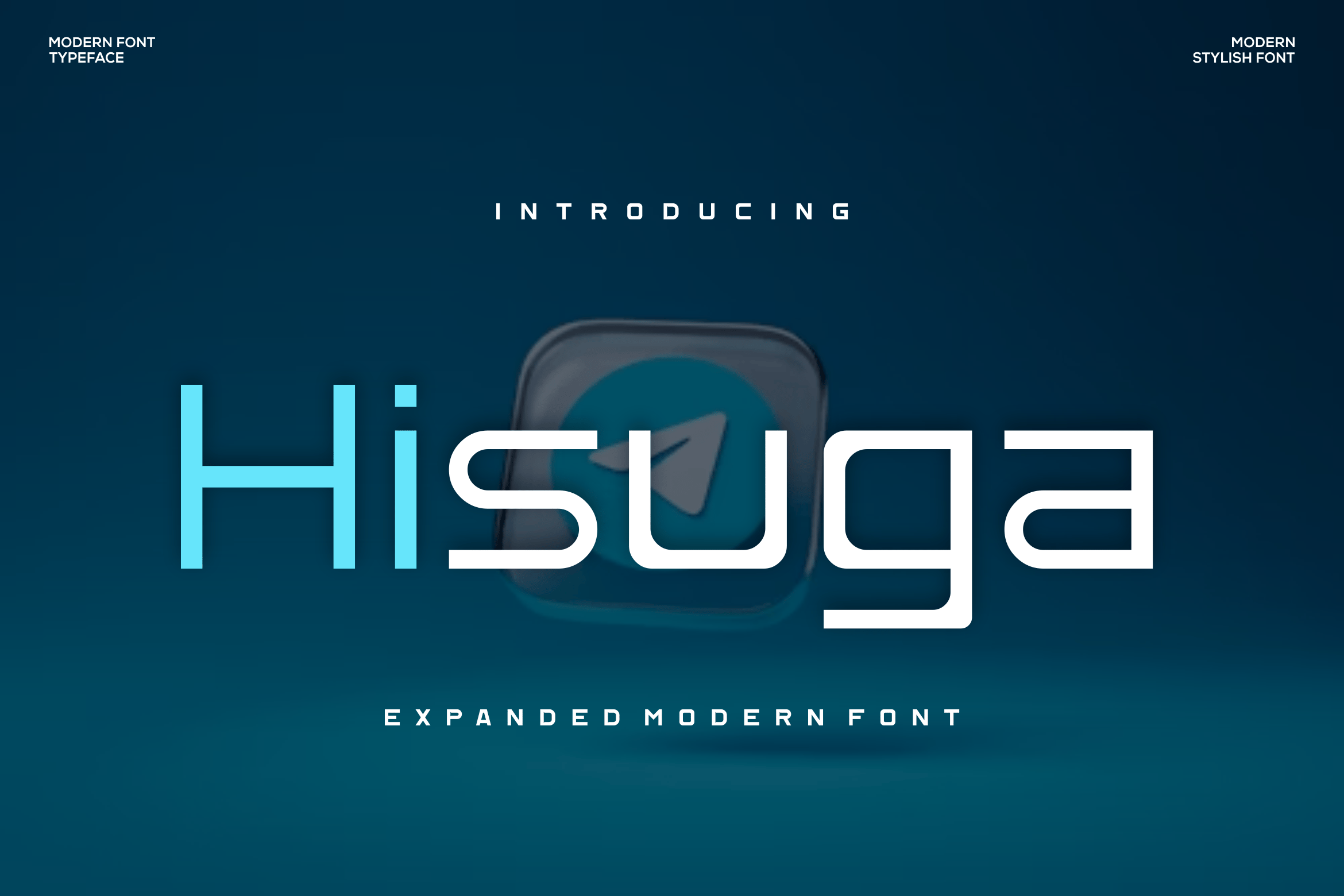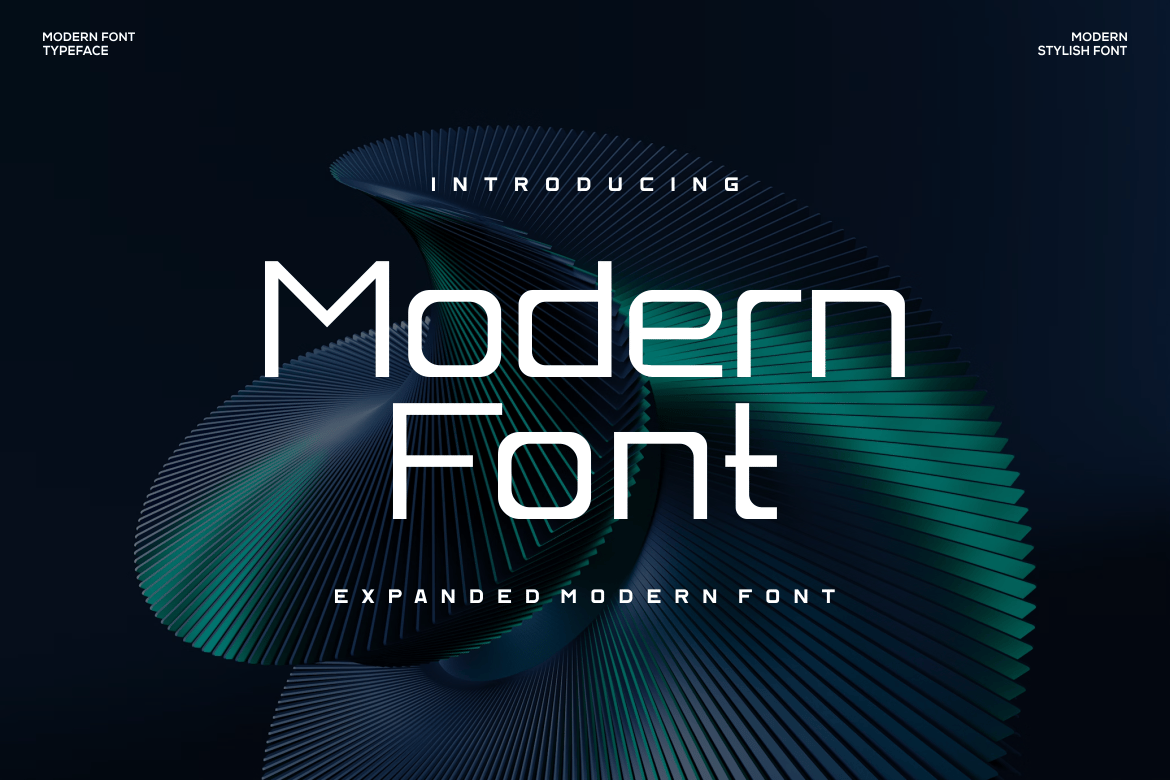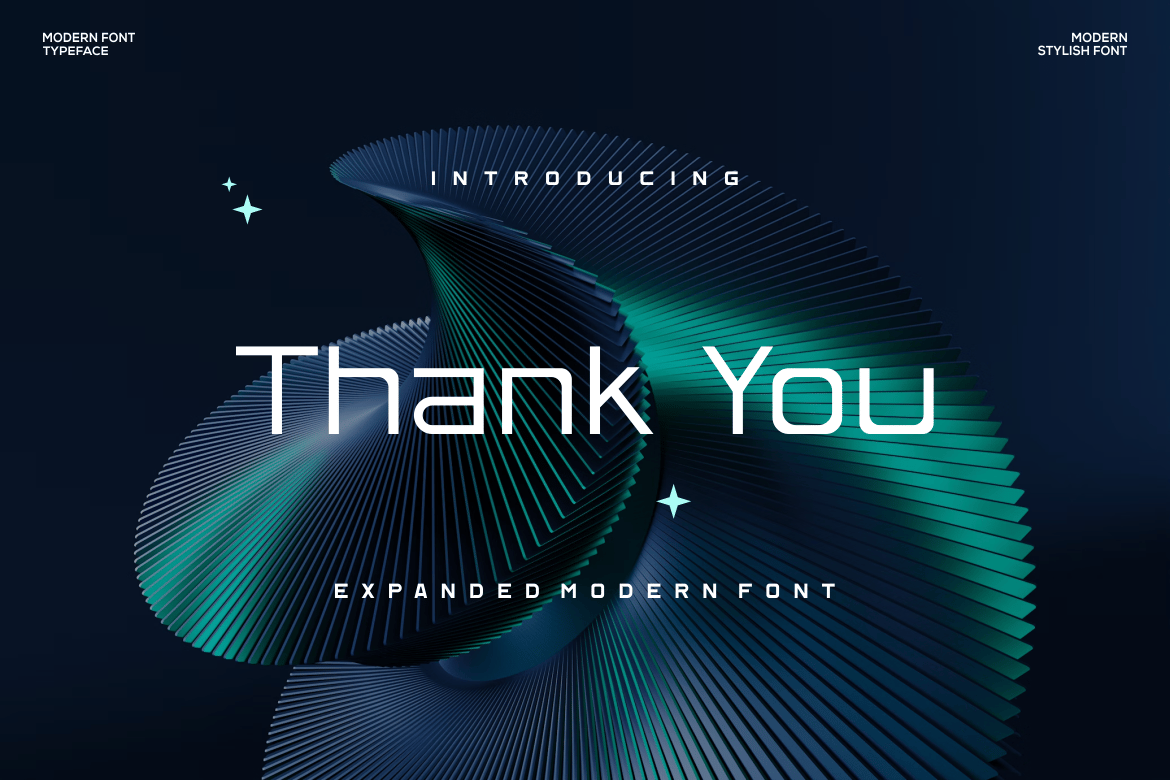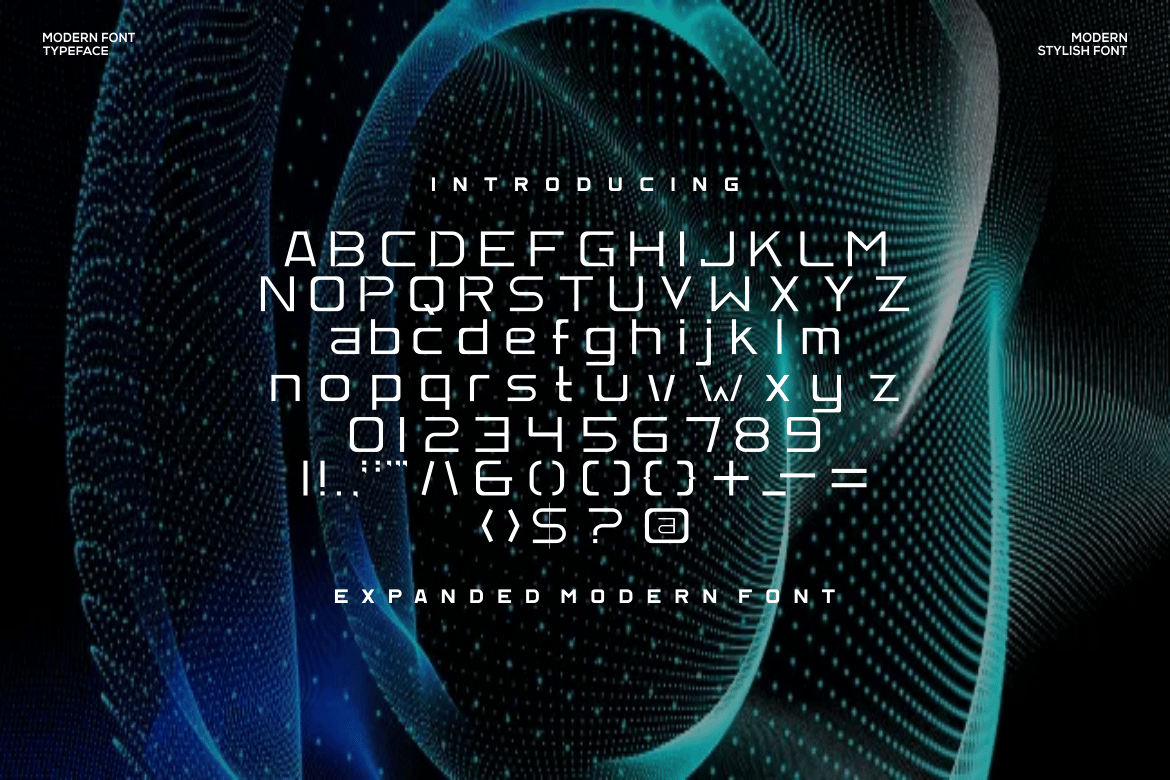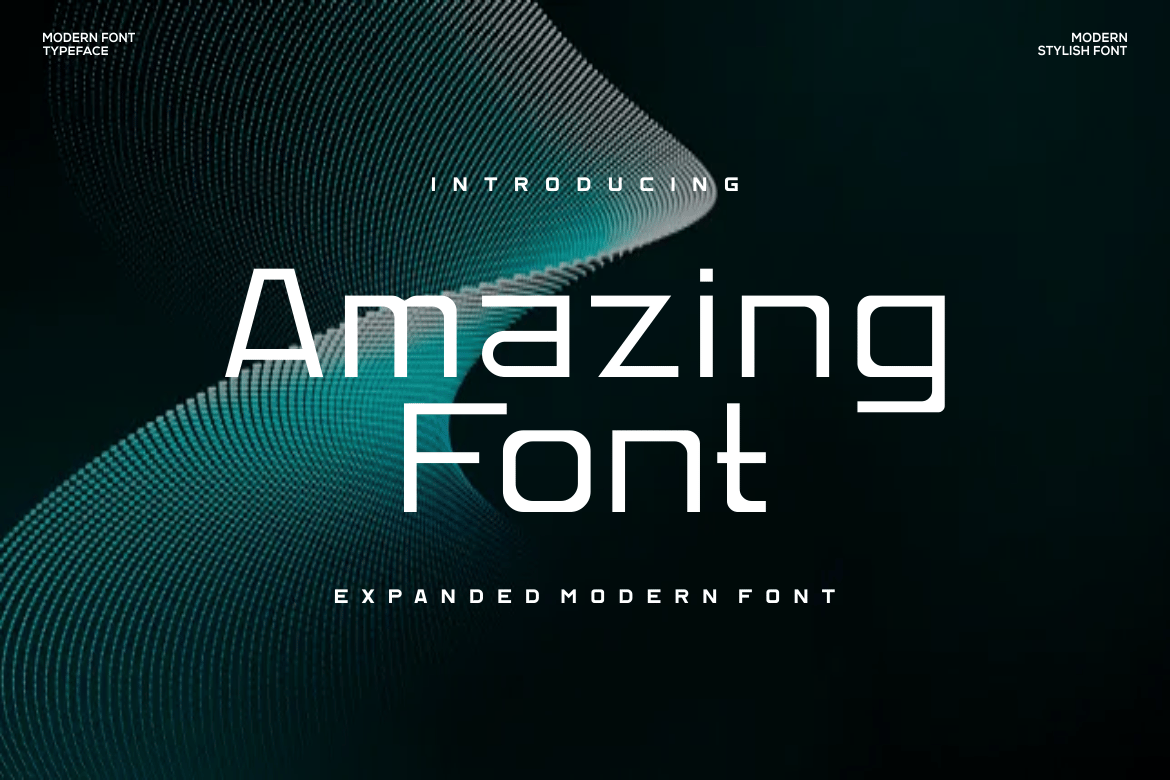
Hisuga Font F64T8JN
Introducing our new product **Hisuga Font** – Modern Font
**Hisuga Font** – Modern Font is a bold and authentic display font. The font is suitable for any branding project like logo, esport, and many more. outstanding in a wide range of contexts.